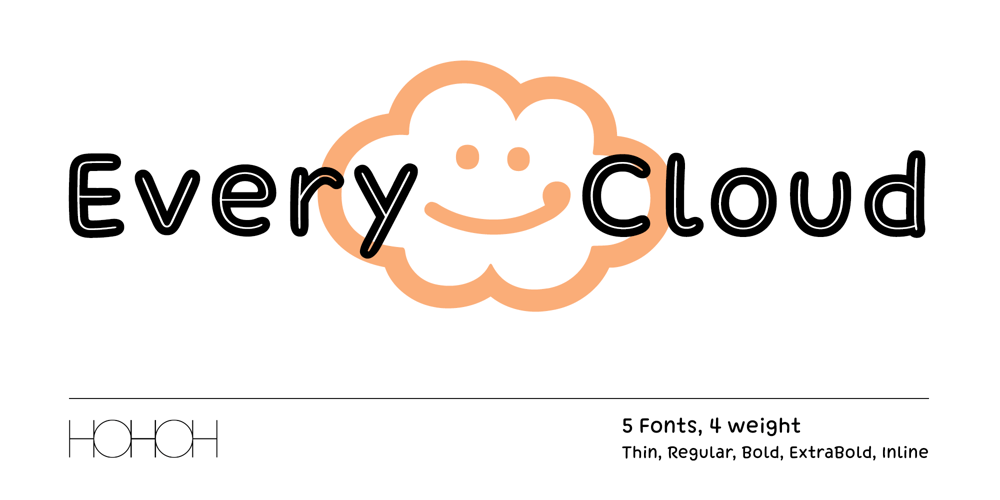
Every Cloud Font Family was designed by Saebom Lee and published by HOHOHtype. Every Cloud contains 5 styles and family package options. ‘Every Cloud’ is a cute hand-drawn type family. The family has 4 different weights and a matching inline style. It has a tall x-height, and the edges are rounded and soft. It was designed with applications such as advertising and packaging, editorial and publishing, logo, branding and creative industries, poster and social media, and marketing in mind.